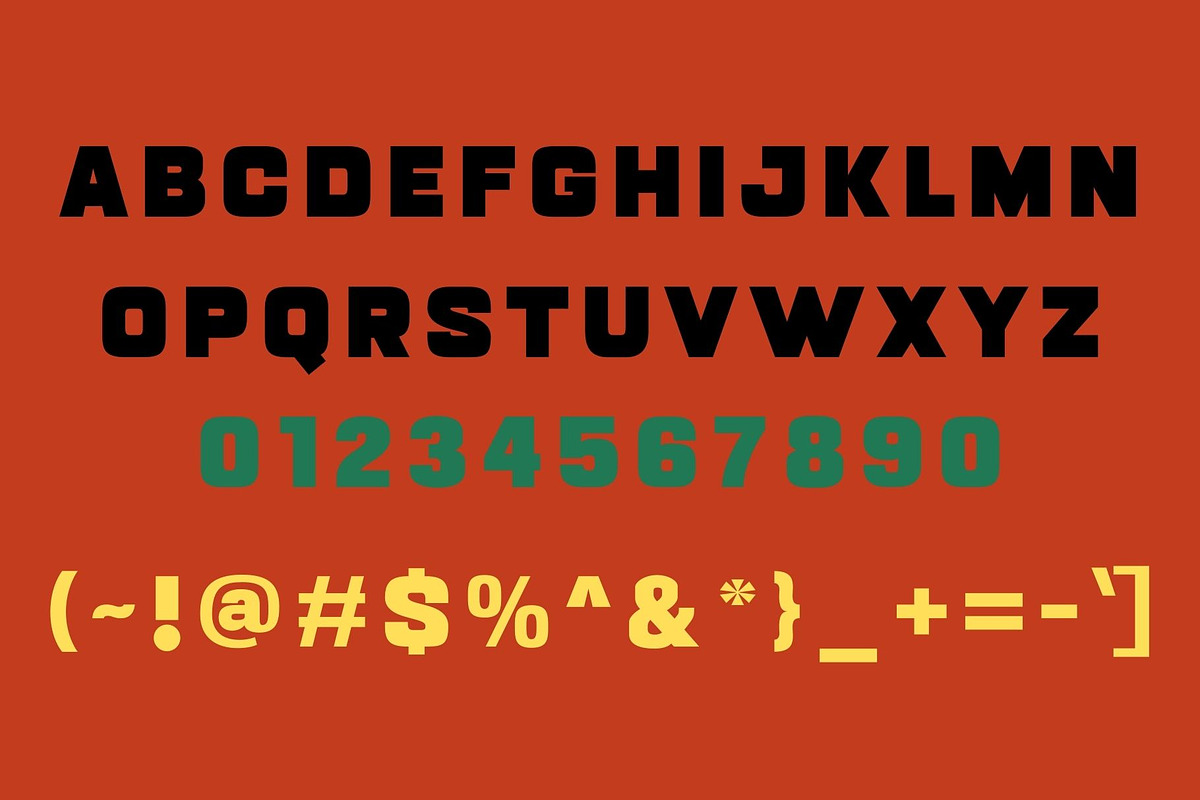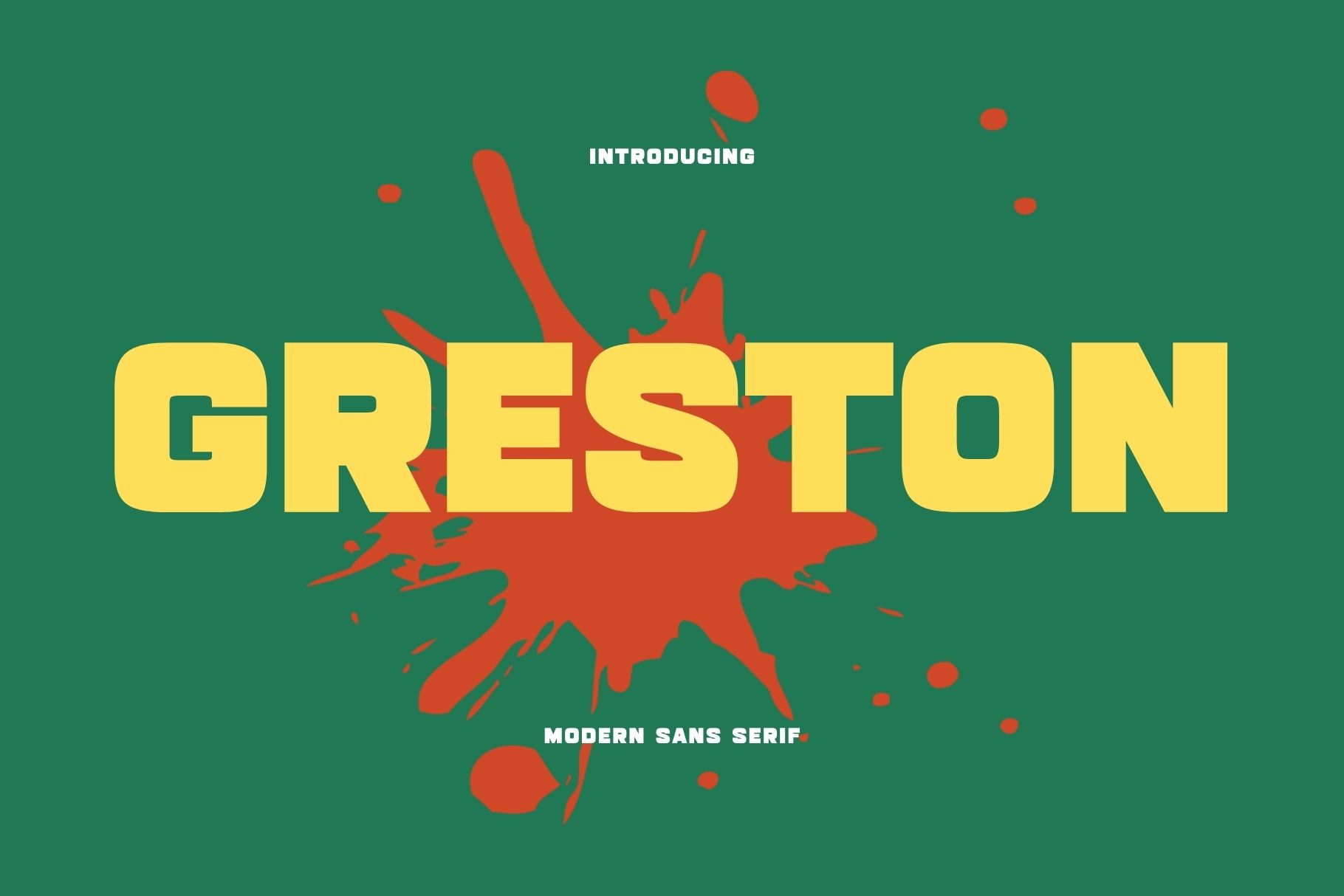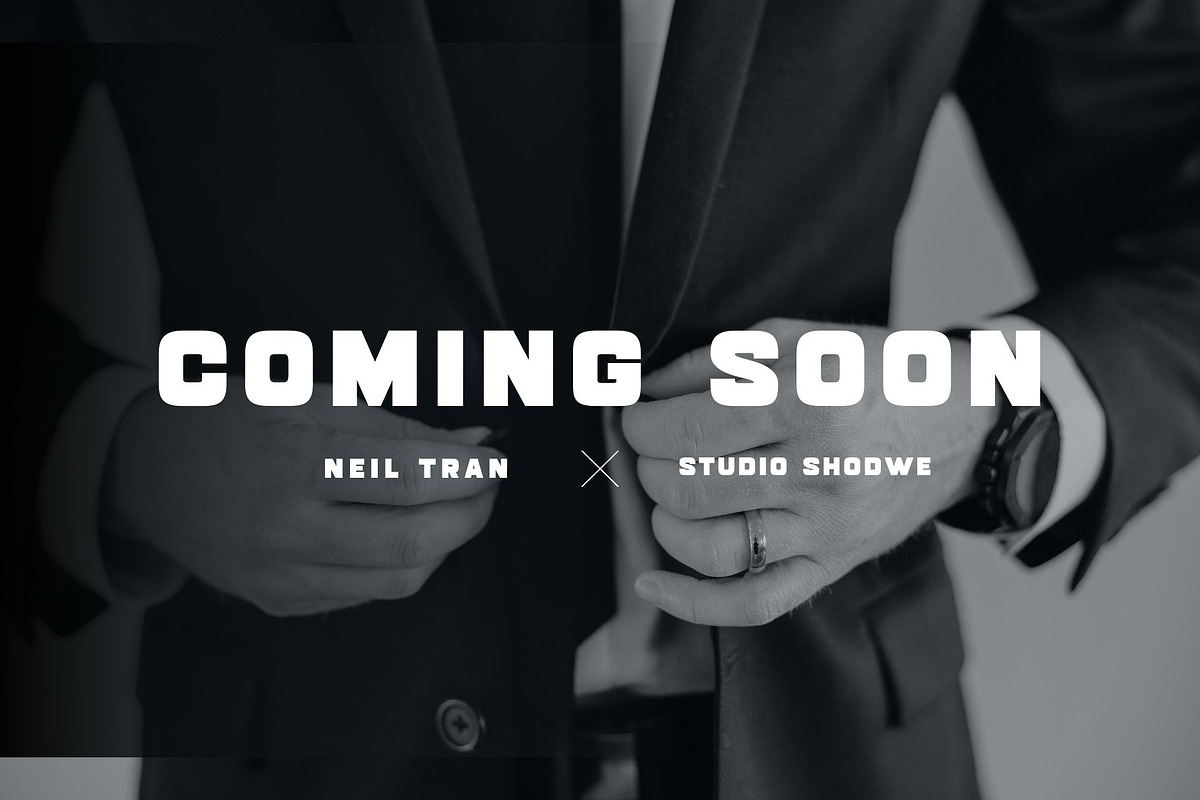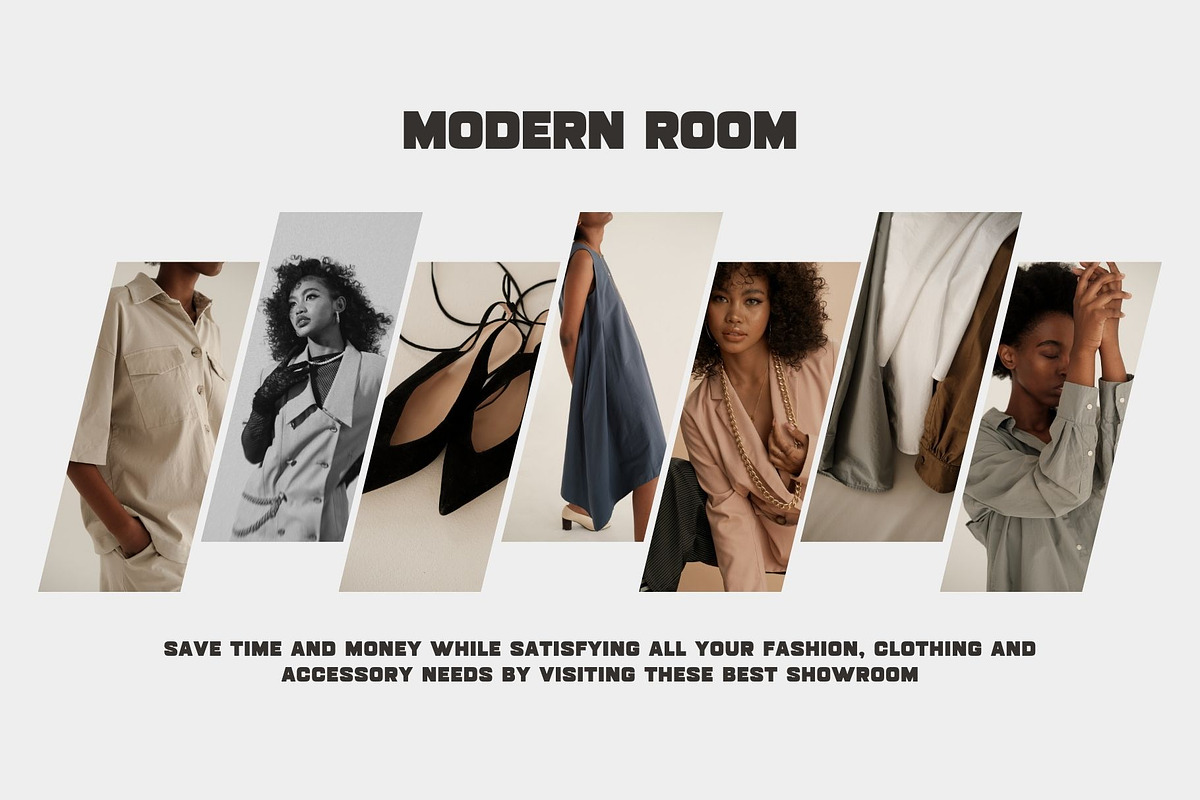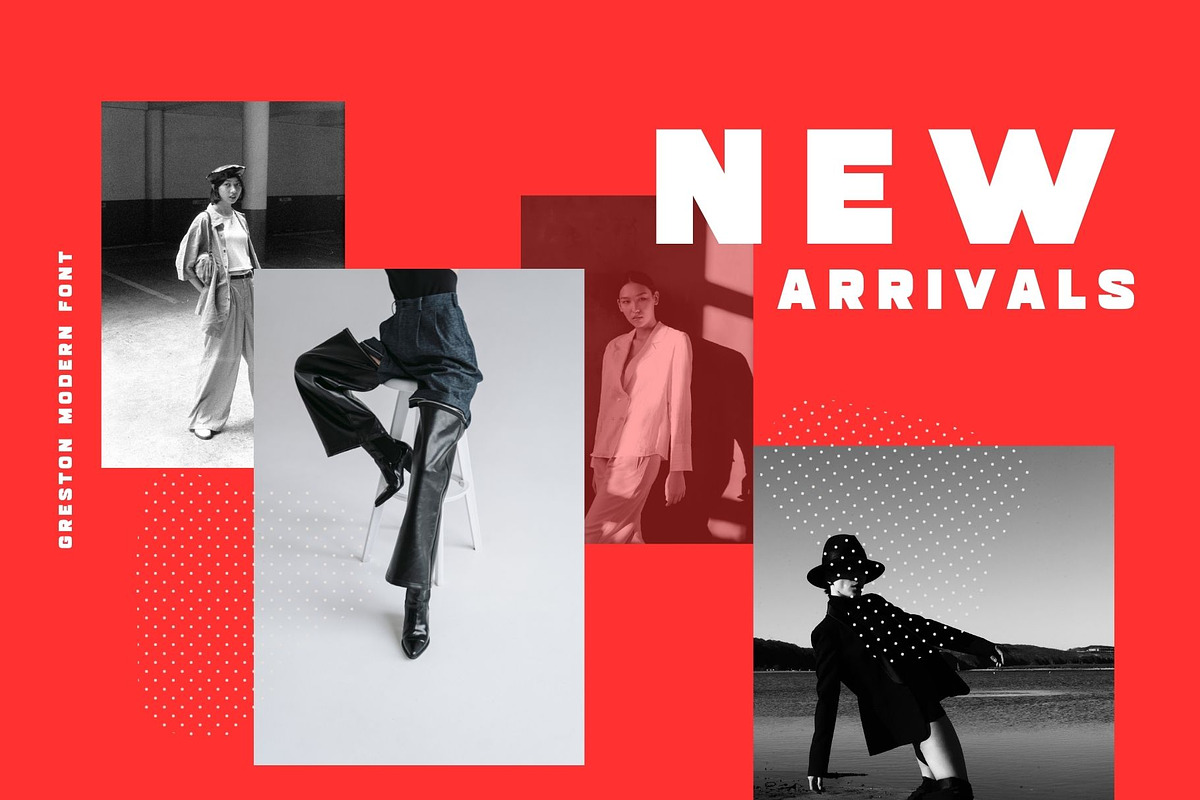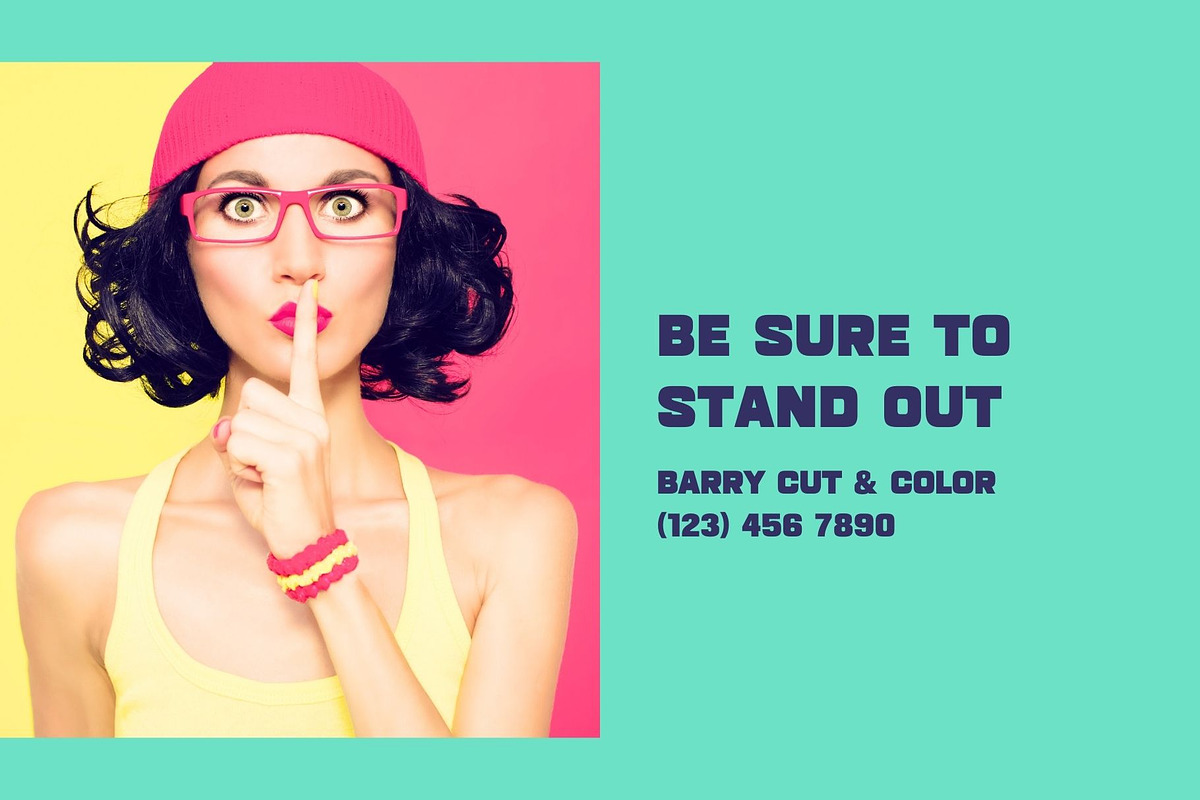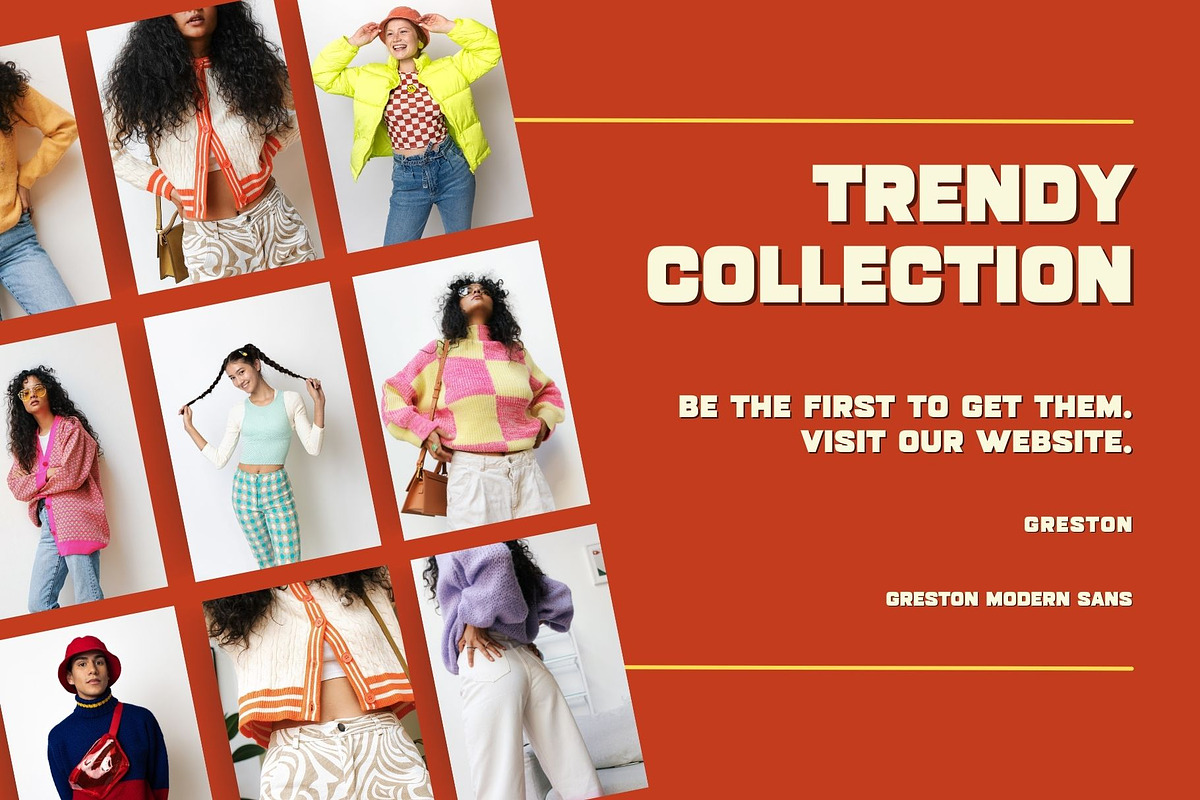
Greston - Modern Sans Serif Typeface
Introducing 'Greston' Font:
Presenting "Greston" – a modern and bold sans-serif font that encapsulates sleek sophistication. With its clean lines and strong presence, Greston is crafted to make a bold statement in your designs. Ideal for branding, headlines, and any project where a contemporary and confident aesthetic is desired, Greston allows you to elevate your typography with its minimalist charm, ensuring a sleek and modern appeal in every use.
Ideal for:
- Fashion Brands
- Advertising Campaigns
- Visual Identity Projects
- Social Media Designs
- Ready for Creative Expression
- Immaculately Crafted Letters